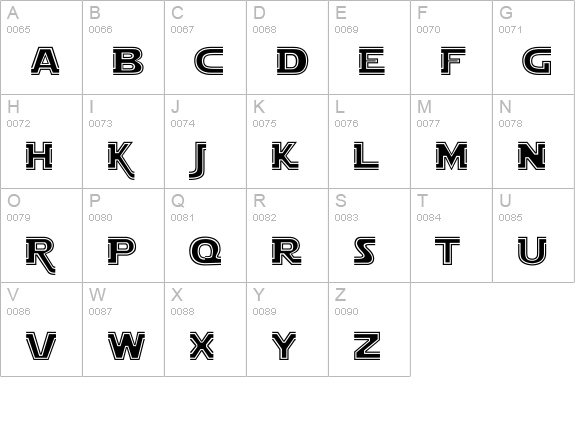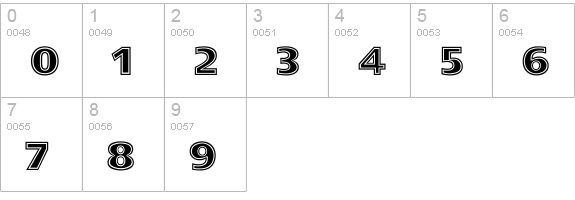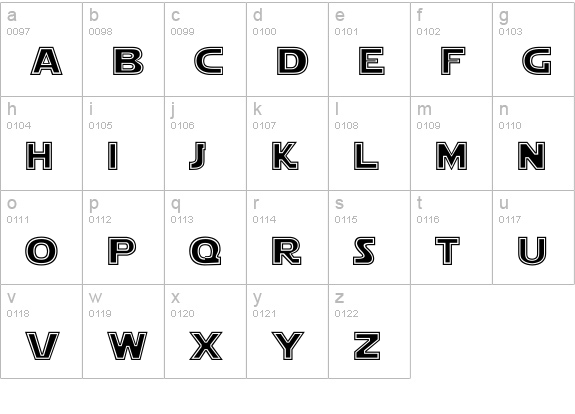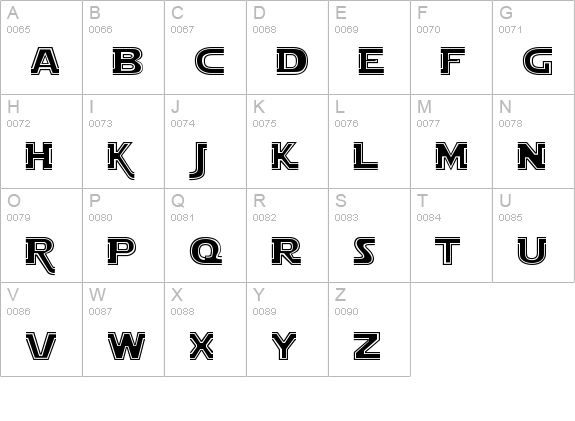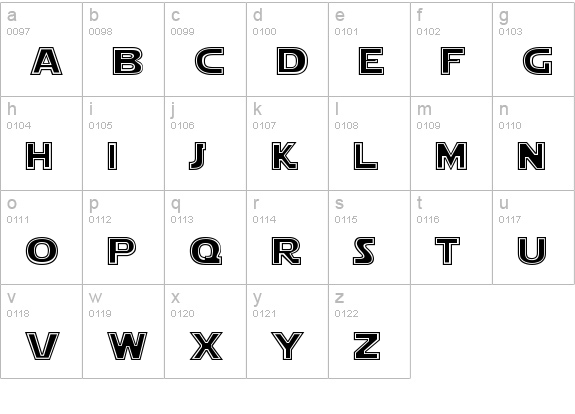
Star Jedi Outline is a remarkable font that captures the essence of adventure, excitement, and the epic nature of the Star Wars universe. This font is a perfect choice for all Star Wars fans, whether you are creating a poster, designing a website, or adding a touch of galactic flair to your personal projects. The Star Jedi Outline font features a bold and striking outline style, reminiscent of the iconic Star Wars logo. Its clean and sharp lines give it a futuristic and otherworldly look, making it an excellent choice for any design that needs to convey a sense of power and strength. One of the best things about Star Jedi Outline is that it is absolutely free. Yes, you heard that right! This incredible font is freely available to download at FontsMarket.com, making it accessible to everyone who wants to add a touch of Star Wars magic to their creations. Whether you are a professional designer or a hobbyist, Star Jedi Outline opens up a universe of creative possibilities. Its versatility allows you to use it in a multitude of projects, from movie posters to T-shirt designs, from book covers to social media graphics. The only limit is your imagination. With Star Jedi Outline, you can bring the force to your designs in a way that is visually compelling and instantly recognizable. Its unique style and association with the Star Wars franchise make it a font that stands out and commands attention. So, why wait? Download Star Jedi Outline today from FontsMarket.com and embark on a journey to a galaxy far, far away. May the font be with you!